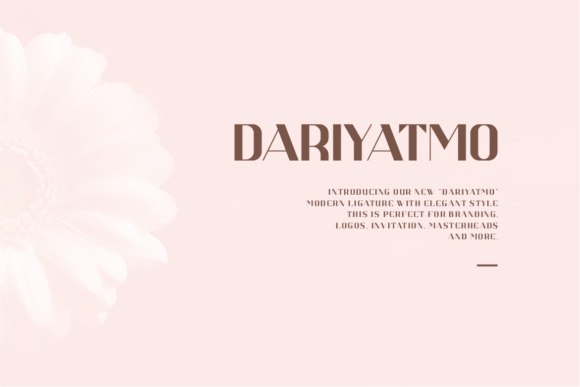
Discover the Unique Charm of Dariyatmo Font: Elevate Your Designs with this Stunning Display Font
In the world of typography, fonts play a crucial role in conveying messages, expressing emotions, and creating a lasting impression. For designers and crafters, finding the perfect font can be a daunting task, especially when looking for something that stands out from the crowd. This is where Dariyatmo Font comes into play – a cool and unique display font that is sure to take your designs to the next level.
What Makes Dariyatmo Font Special?
Dariyatmo Font is a meticulously crafted and highly detailed display font that boasts a distinctive charm. Its unique design makes it an excellent addition to any font library, capable of enhancing any creation, regardless of the topic or theme. Whether you’re working on a branding project, a website, or a marketing material, Dariyatmo Font is sure to make a statement.
Key Features of Dariyatmo Font
- Unique Design: Dariyatmo Font features a one-of-a-kind design that sets it apart from other fonts. Its distinctive style makes it perfect for creating eye-catching headlines, titles, and captions.
- Highly Detailed: The font is crafted with precision and attention to detail, ensuring that it looks great in various sizes and resolutions.
- Versatile: Dariyatmo Font can be used for a wide range of projects, from digital designs to print materials, making it a versatile addition to your font library.
- Ease of Use: The font is easy to read and works well in various contexts, making it perfect for designers and crafters of all skill levels.
How to Use Dariyatmo Font in Your Designs
Incorporating Dariyatmo Font into your designs is straightforward. Here are a few ideas to get you started:
- Headlines and Titles: Use Dariyatmo Font to create attention-grabbing headlines and titles that set the tone for your content.
- Branding and Logo Design: The font’s unique design makes it perfect for creating memorable logos and brand identities.
- Marketing Materials: Dariyatmo Font can be used to create eye-catching marketing materials, such as brochures, flyers, and posters.
- Web Design: The font works well in digital designs, making it suitable for website headers, section titles, and other UI elements.
Tips for Getting the Most Out of Dariyatmo Font
To maximize the impact of Dariyatmo Font, consider the following tips:
- Experiment with Sizes: Dariyatmo Font looks great in various sizes, so don’t be afraid to experiment and find the perfect size for your design.
- Pair it with Other Fonts: Combine Dariyatmo Font with other fonts to create a unique and visually appealing typography scheme.
- Use it Consistently: Use Dariyatmo Font consistently throughout your design to create a cohesive and professional look.
Dariyatmo Font is a unique and versatile display font that can elevate your designs and take them to the next level. Its distinctive charm, highly detailed design, and ease of use make it an excellent addition to any font library. Whether you’re a designer or crafter, Dariyatmo Font is sure to become a go-to font in your collection. So why wait? Discover the power of Dariyatmo Font and take your designs to new heights.